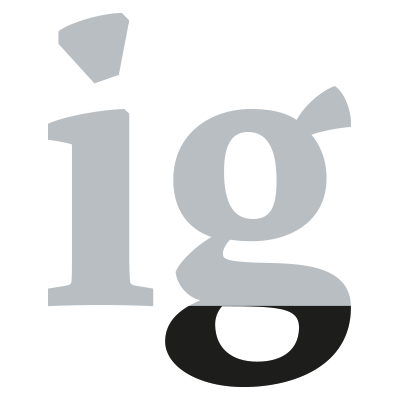
The part of a letter that extends below the baseline.
Dutch: staart
French: jambage
German: Unterlänge
Italian: [asta] discendente
Polish: wydłużenie dolne
Russian: нижний выносной элемент
Spanish: descendente
Related Term(s): Ascender